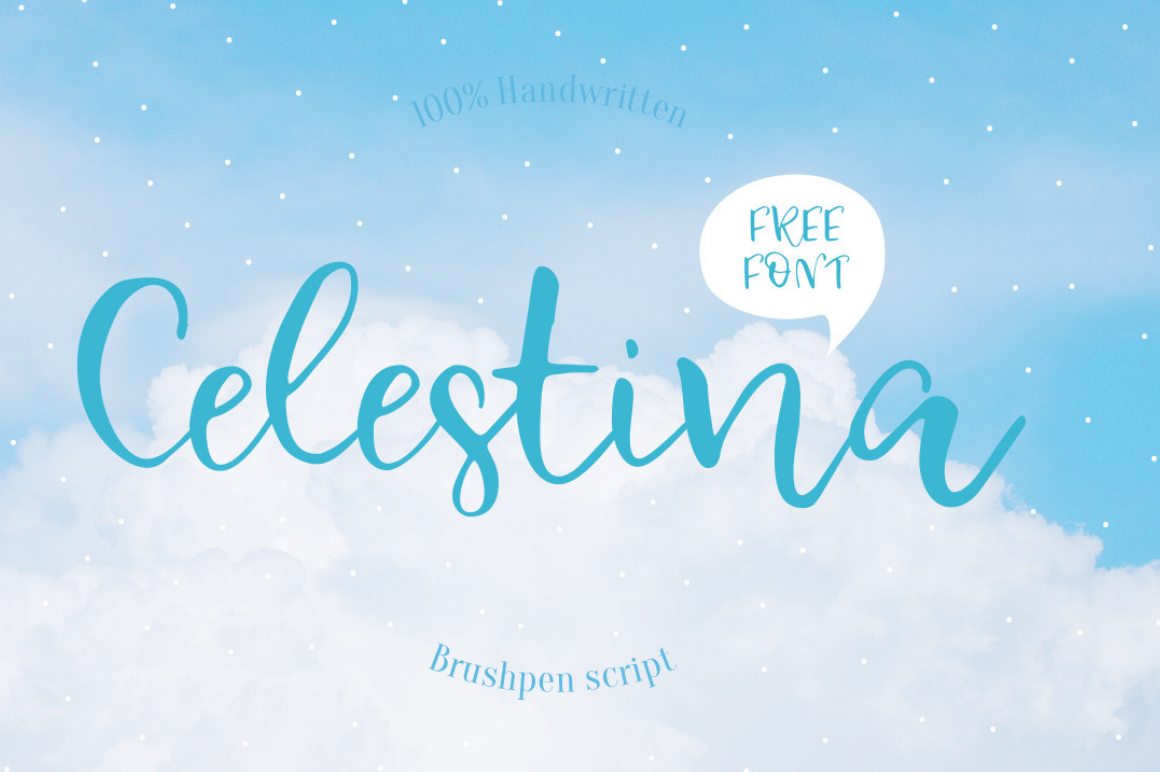
• Celestina Free Script Font
• Playful, rounded handwritten style
• Great for blogs & stories
• Works for crafts & designs
Bring a touch of playfulness & whimsy to your words with –
Free Celestina font
A font for commercial use is the lively spirit, just like drops of ink on a piece of paper or clouds in the sky. The same spirit is maintained by the rounded letters of the script and by the characters’ small whorls.
Celestina works perfectly for both Moomins stories and personal blogs, as well as for the design of hand-made things, and even just then, when you want to put yourself in a good mood!
• Playful handwritten style
• Rounded, charming letters
• Font Name: Celestina
• Style: Rounded, playful handwritten script
Modern calligraphy
Multilingual support
Characters aphabets and numbers supported
ligatures of celestina font
collage of 4 pictures using celestina font
cute cloudy picture using the font